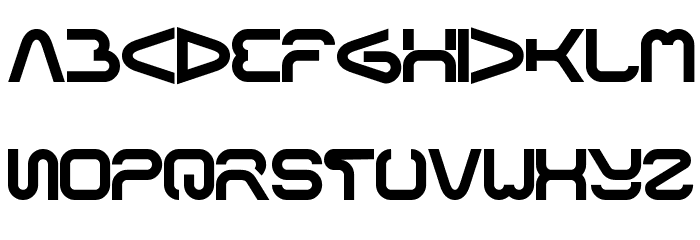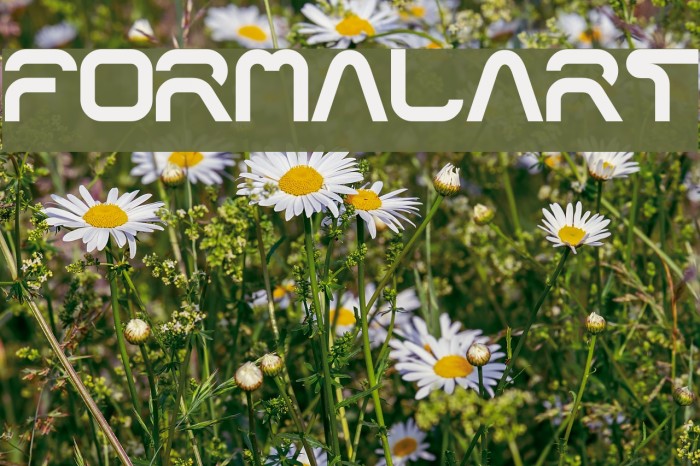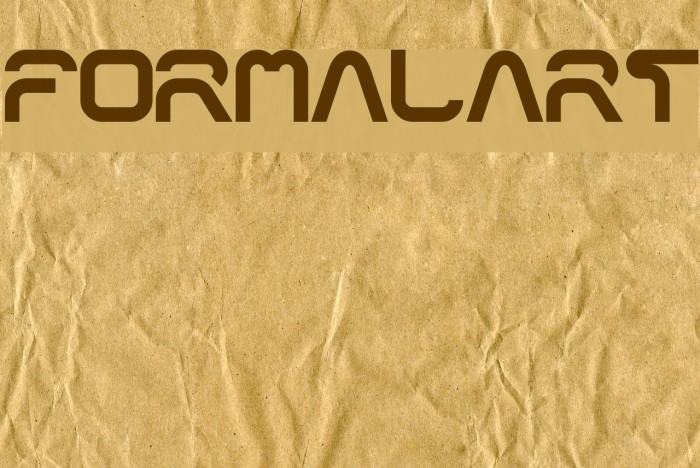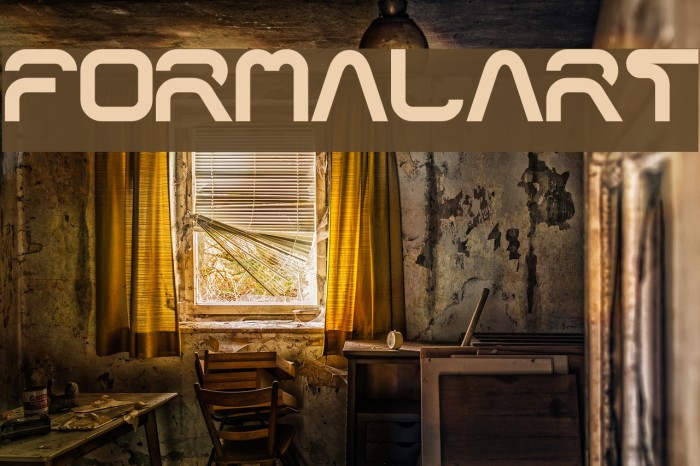
formalart Font
This font features a futuristic and geometric design, characterized by bold, angular shapes and a distinct, modern aesthetic. The uppercase letters are crafted with sharp edges and unique cutouts, giving them a high-tech appearance. The lowercase letters maintain a similar style, with consistent angularity and a cohesive look. The numbers and special characters are designed to match the overall theme, ensuring uniformity across all glyphs. This font's distinctive style makes it stand out, ideal for projects that require a modern and edgy look.
A futuristic, geometric font with bold, angular shapes and a modern aesthetic.
- Proposed Projects: Ideal for tech-related branding, sci-fi movie posters, video game titles, and modern digital interfaces.